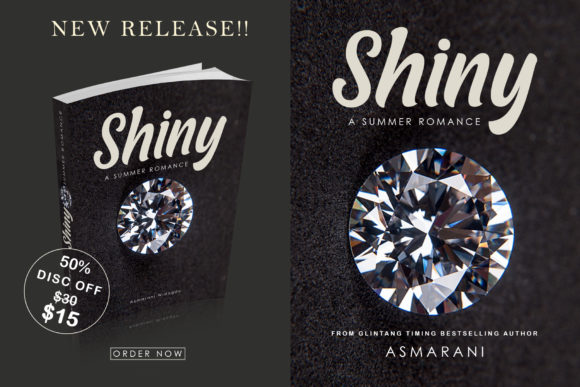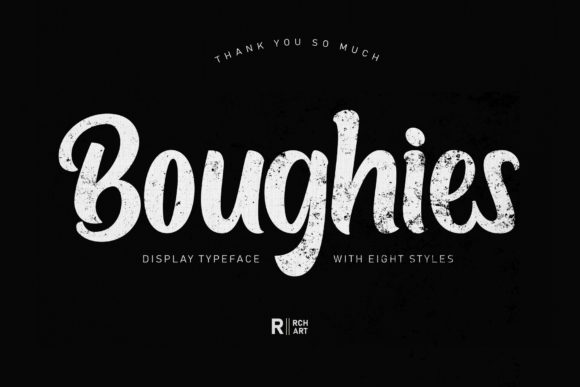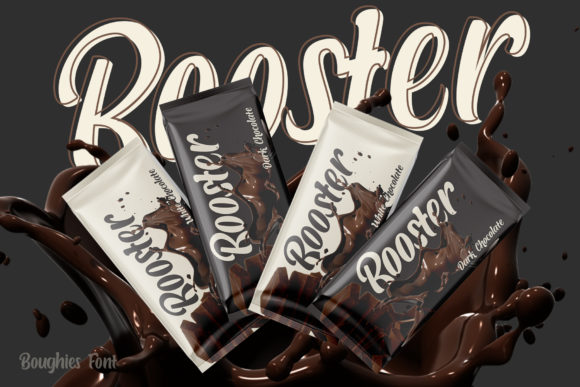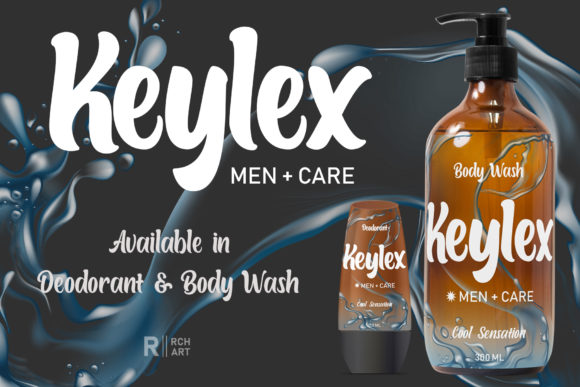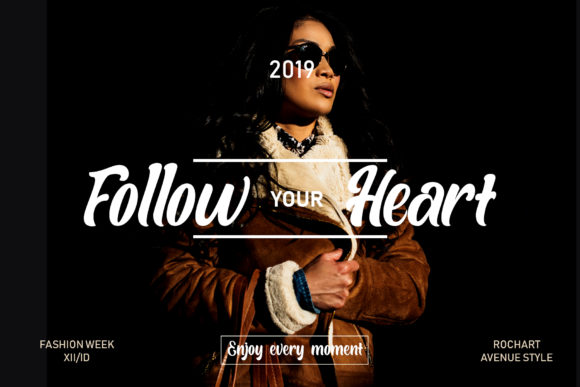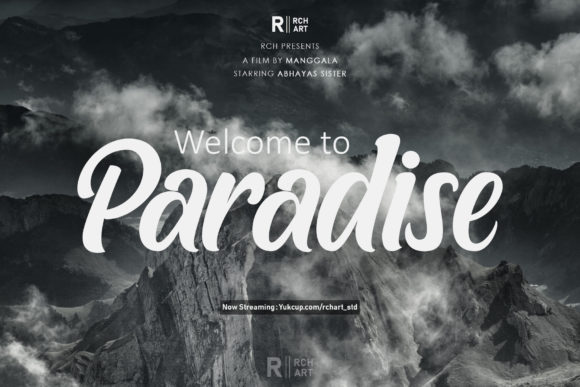
The Moment That Changes Your Design Game
Have you ever stared at a blank canvas, waiting for the perfect font to bring your design to life? That’s where the magic happens – and for us, that magic is called Boughies Font. This bold display font is the game-changer your designs have been missing. Its unique style and flair are sure to elevate any project, making it stand out from the crowd.
Boughies Font is designed to make a statement, and it delivers. Whether you’re creating a logo, heading, or title, this font is the perfect choice. Its versatility and boldness will add a touch of sophistication and elegance to any design. As a designer, you understand the importance of finding the right font to convey your message. That’s why Boughies Font is a valuable addition to any design toolkit.
Boughies Font Key Features
- Character Count: The font includes over 800 characters, including uppercase and lowercase letters, numbers, punctuation marks, and special characters.
- Unique Characteristics: The font features a unique, handwritten style with subtle imperfections, giving it a personal and creative touch.
Boughies Font Review
Overall, I was excited to dive into the Boughies font, and I must say it’s a solid choice for certain projects. ✨ The font’s unique, whimsical style immediately caught my attention, and I appreciate the creative direction.
The Boughies font excels in the following areas:
- ✨ Unique character set: The font’s distinct letterforms and symbols add a playful touch to any design.
- ✨ High-quality rendering: The font’s rendering is crisp and clean, making it perfect for digital applications.
- ✨ Versatile: Boughies can be used for a wide range of projects, from branding to editorial content.
- ⚠️ Limited language support: The font’s character set is mostly focused on English and doesn’t include comprehensive support for other languages.
- ⚠️ Limited font weights: The font only comes in a few weights, which might limit its use in certain design scenarios.
- ⚠️ Overuse: The font’s unique style can be overwhelming if overused, so be cautious when applying it in large quantities.
Overall, I think the Boughies font is a great addition to any designer’s toolkit, but it’s essential to be aware of its limitations and use it thoughtfully.
The Boughies Font is ideal for:
- Creatives looking for a unique, handwritten font.
- Designers needing a font for wedding invitations, menus, or other special occasion materials.
- Artists and writers seeking a font that adds a personal touch to their work.
Alternatives to Boughies Font for Designers
Great Vibes is a beautiful, handwritten script font that’s perfect for adding a touch of elegance to your designs. It’s ideal for wedding invitations, greeting cards, and other creative projects where a unique, cursive feel is desired.
Comparison to Boughies Font: While both fonts are handwritten and elegant, Great Vibes has a more refined and sophisticated look, making it suitable for high-end designs. Boughies Font, on the other hand, has a more playful and whimsical feel.
Alex Brush is a luxurious, handwritten script font that’s perfect for creating a sense of sophistication and elegance in your designs. It’s ideal for branding, packaging, and other projects where a high-end, premium feel is desired.
Comparison to Boughies Font: Alex Brush has a more refined and polished look compared to Boughies Font, making it suitable for more formal designs. Boughies Font has a more casual and playful feel, making it ideal for creative and whimsical projects.
Yes, Boughies Font is a highly customizable font with advanced OpenType features, including ligatures, swashes, and stylistic sets. You can access these features using a font editor or design software that supports OpenType.
Q: Does Boughies Font include any special characters or languages?
Boughies Font includes a comprehensive character set, covering Latin, Cyrillic, and Greek alphabets, as well as a range of punctuation and symbol characters. However, please note that language support may be limited in certain font formats or versions.